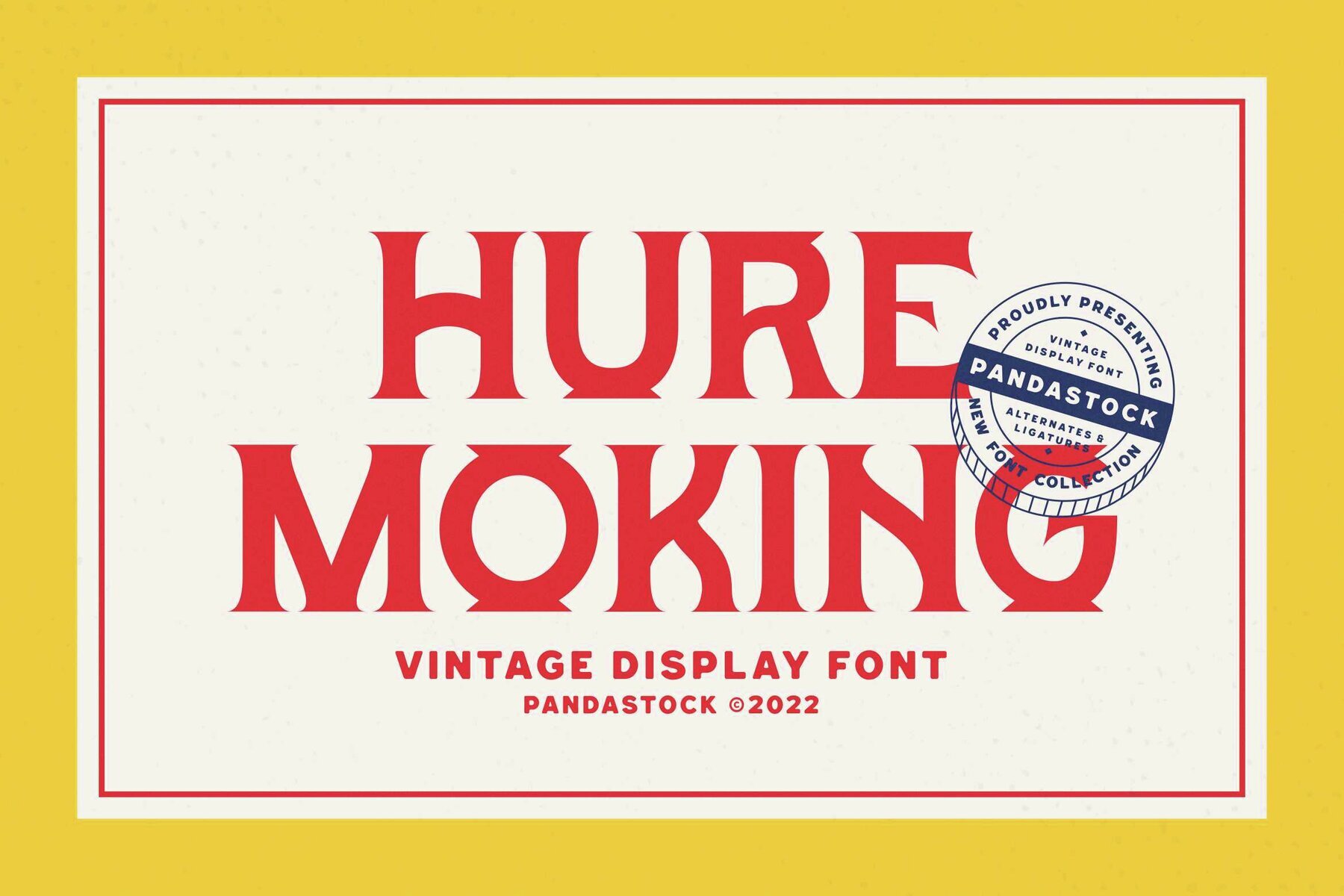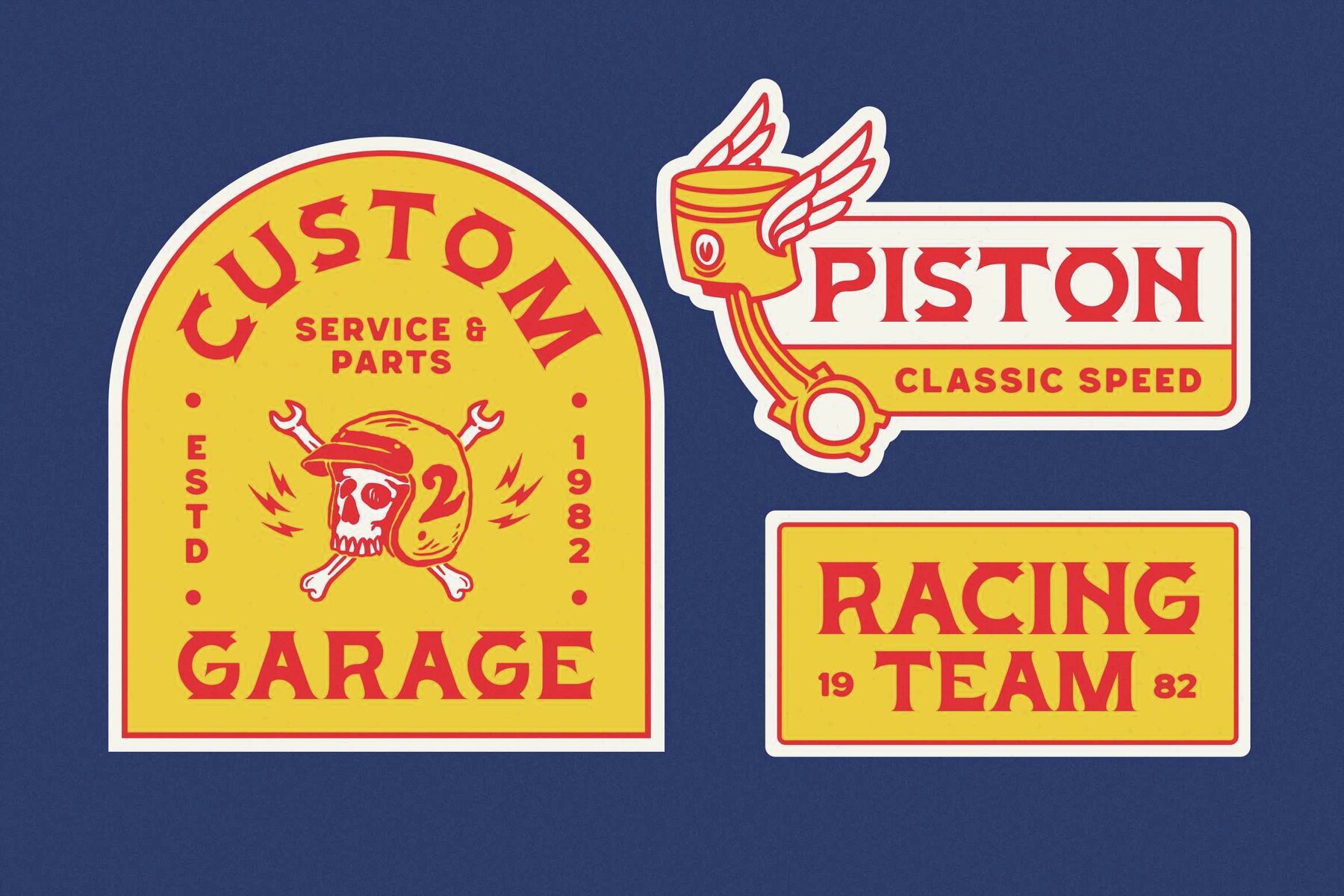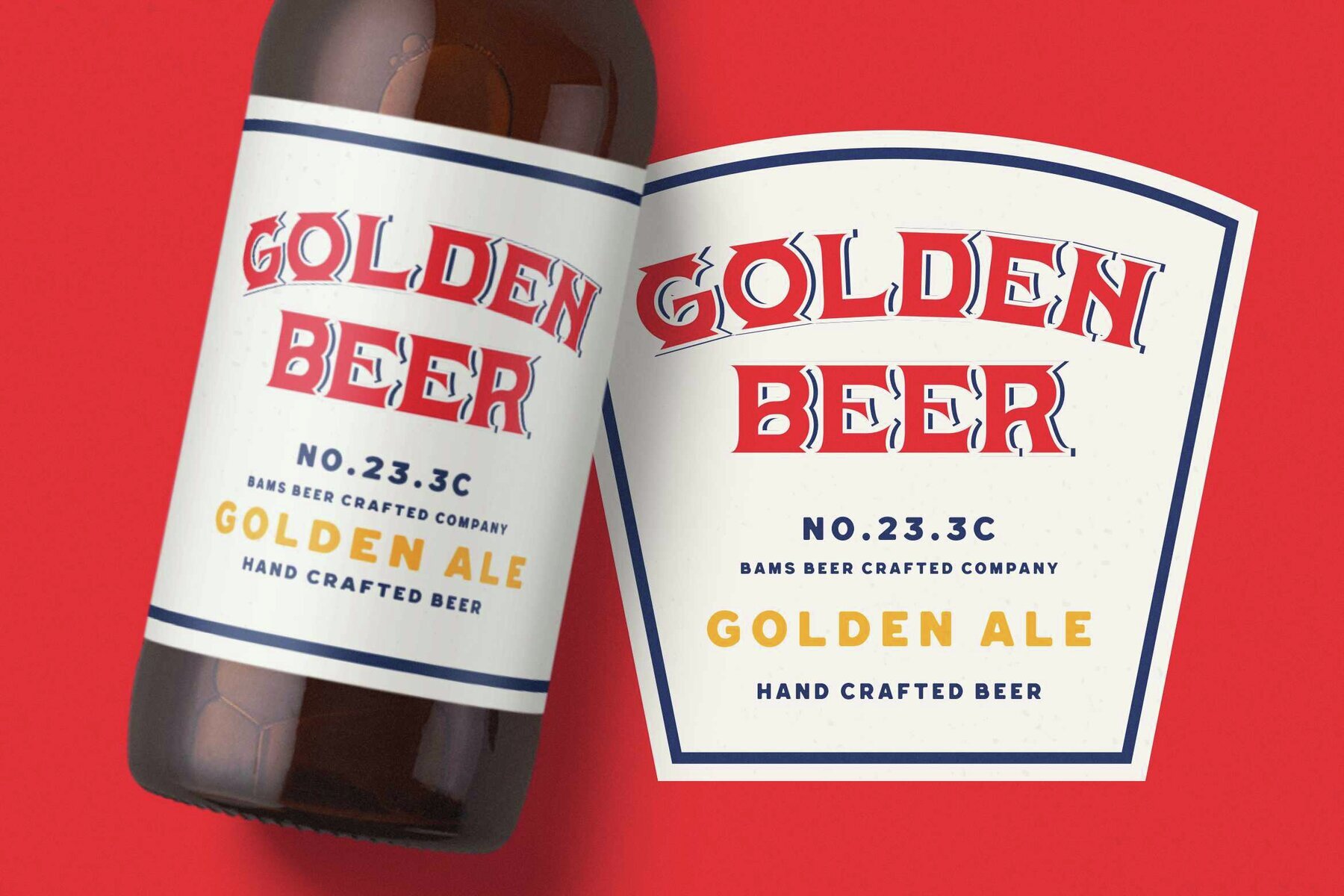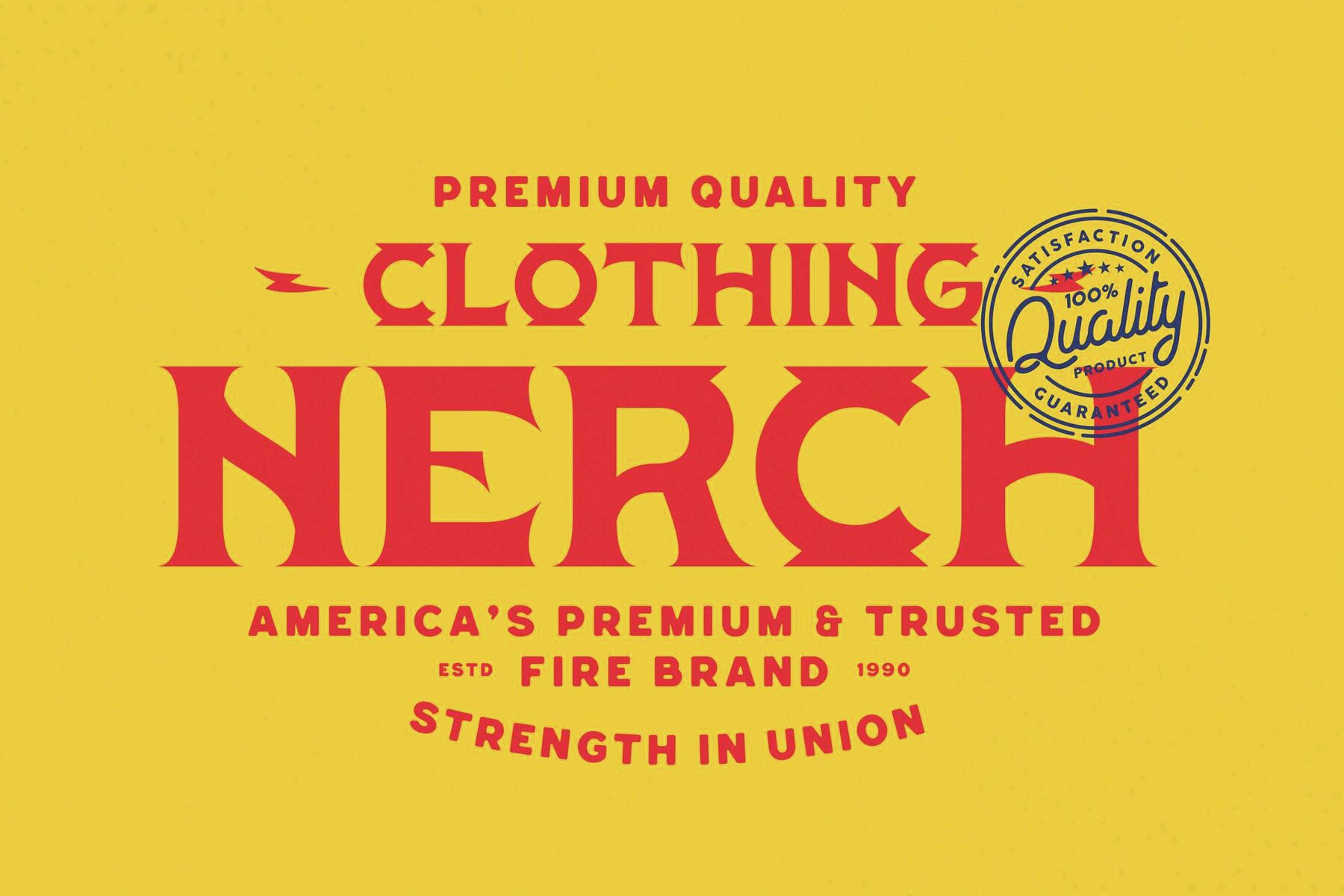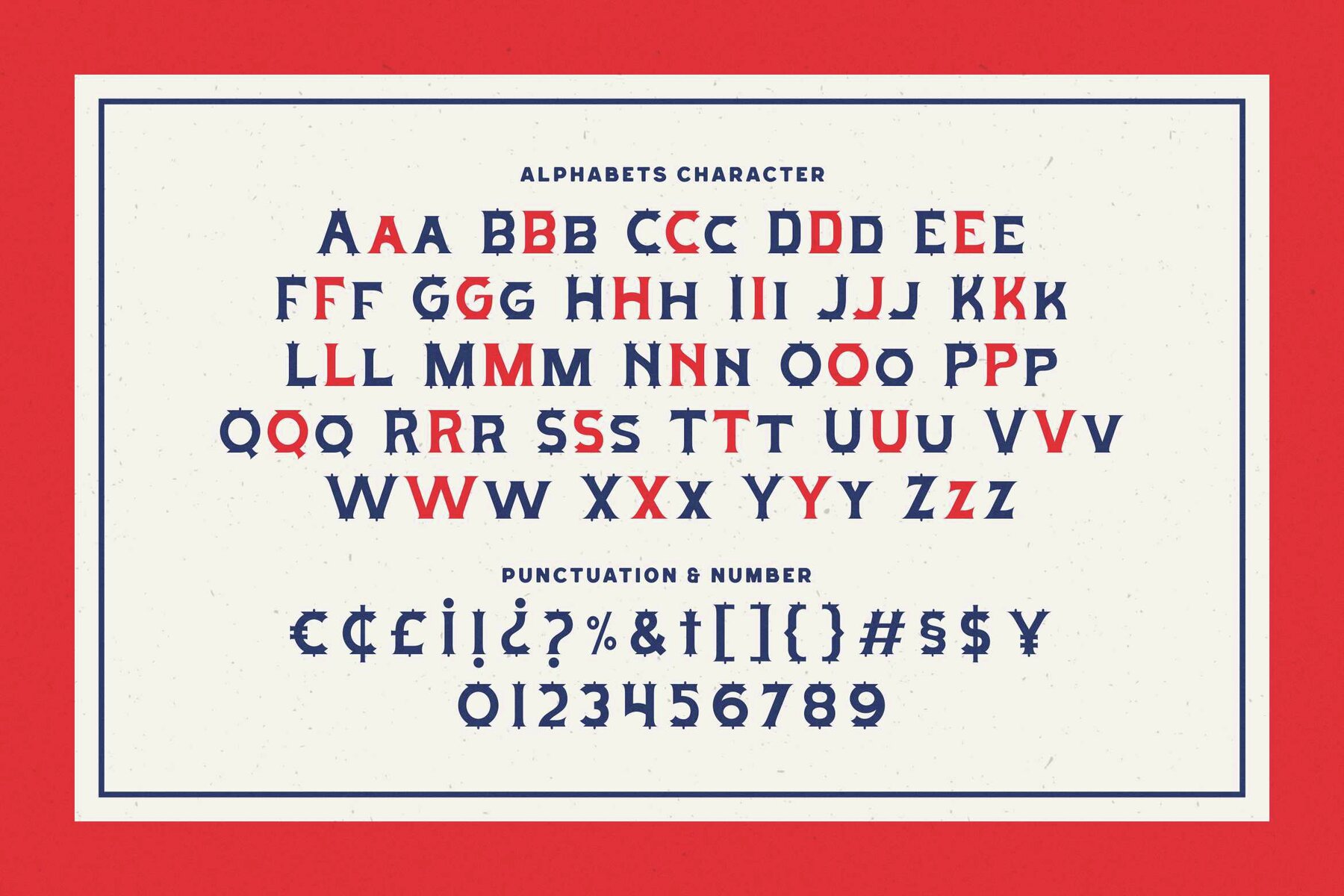
Hure Moking Font
Hure Moking Regular
Hure Moking captures the essence of vintage serif fonts, embodying bold character and solid forms reminiscent of classic automotive labels. Inspired by the gritty world of garages, its thick, sturdy letterforms with rigid slab serifs and sharp angles evoke the fearless spirit found in fuel tank emblems and custom shop signage. The elegant retro detailing in each letterform makes Hure Moking ideal for branding that highlights heritage, craftsmanship, and authenticity. This font excels as a headline or logo in motorcycle labels, racing team stickers, biker apparel, or garage signage. It maintains a professional yet timeless classic impression, offering high legibility and bold branding that commands attention while radiating cool confidence.Hure Moking: Bold Vintage Elegance in Typography